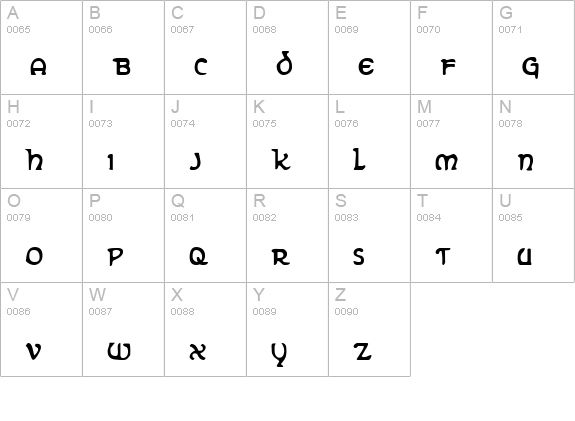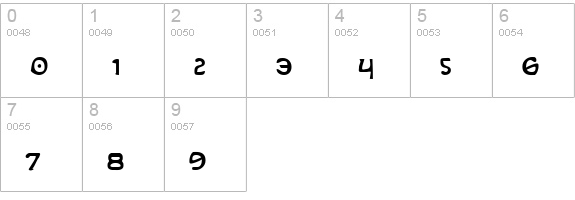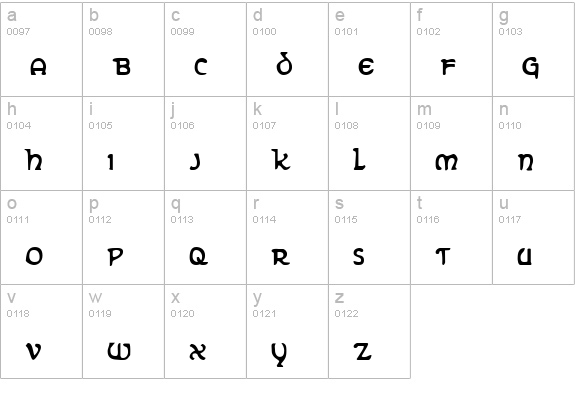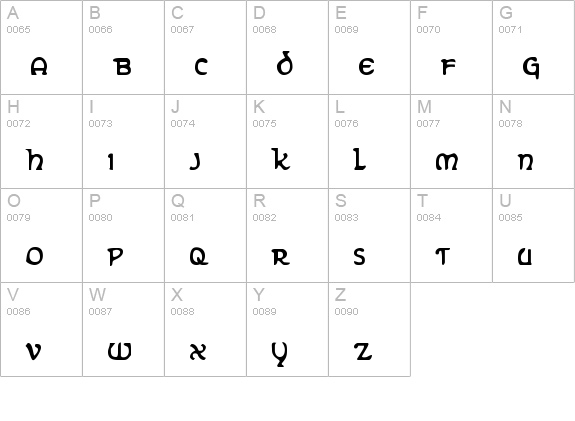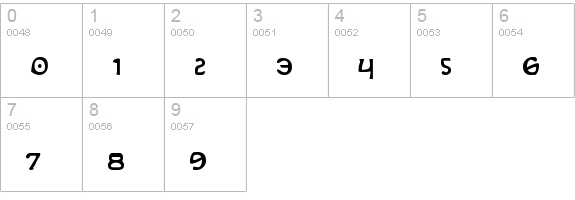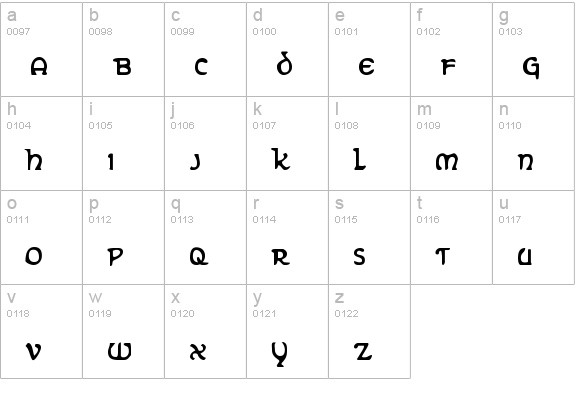
Erin Go Bragh Condensed is a distinctive, condensed-width variant in the Erin typeface family \xE2\x80\x94 well suited to design and typography projects.
The Erin Go Bragh Condensed font is a stylish and modern typeface that exudes elegance and sophistication. With its sleek lines and contemporary design, this font is perfect for a wide range of creative projects, from branding to advertising to digital design. The condensed style of the font makes it ideal for fitting more text into limited spaces without sacrificing readability. Best of all, the Erin Go Bragh Condensed font is available for free download at FontsMarket.com. This means that you can easily access this high-quality font without any cost, making it a valuable resource for designers, businesses, and individuals looking to elevate their projects with a touch of sophistication and style. Don't miss out on this opportunity to enhance your work with the Erin Go Bragh Condensed font - download it for free today at FontsMarket.com!